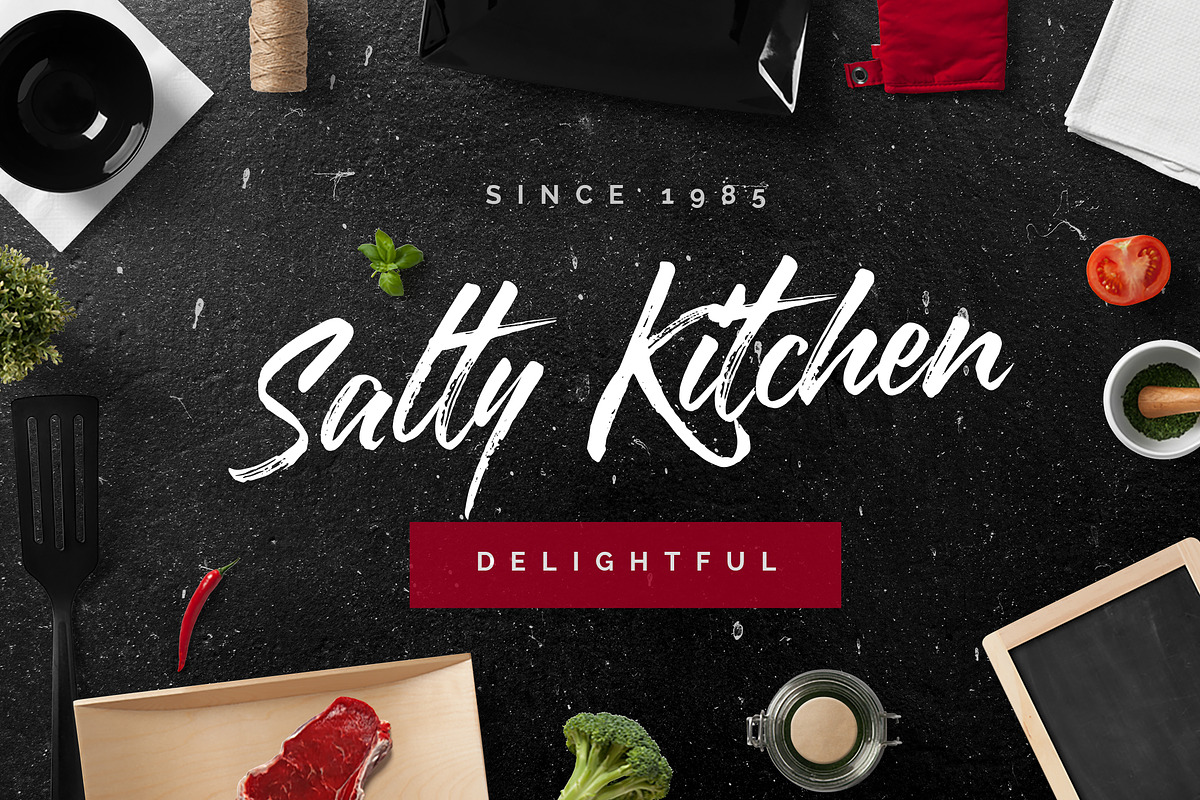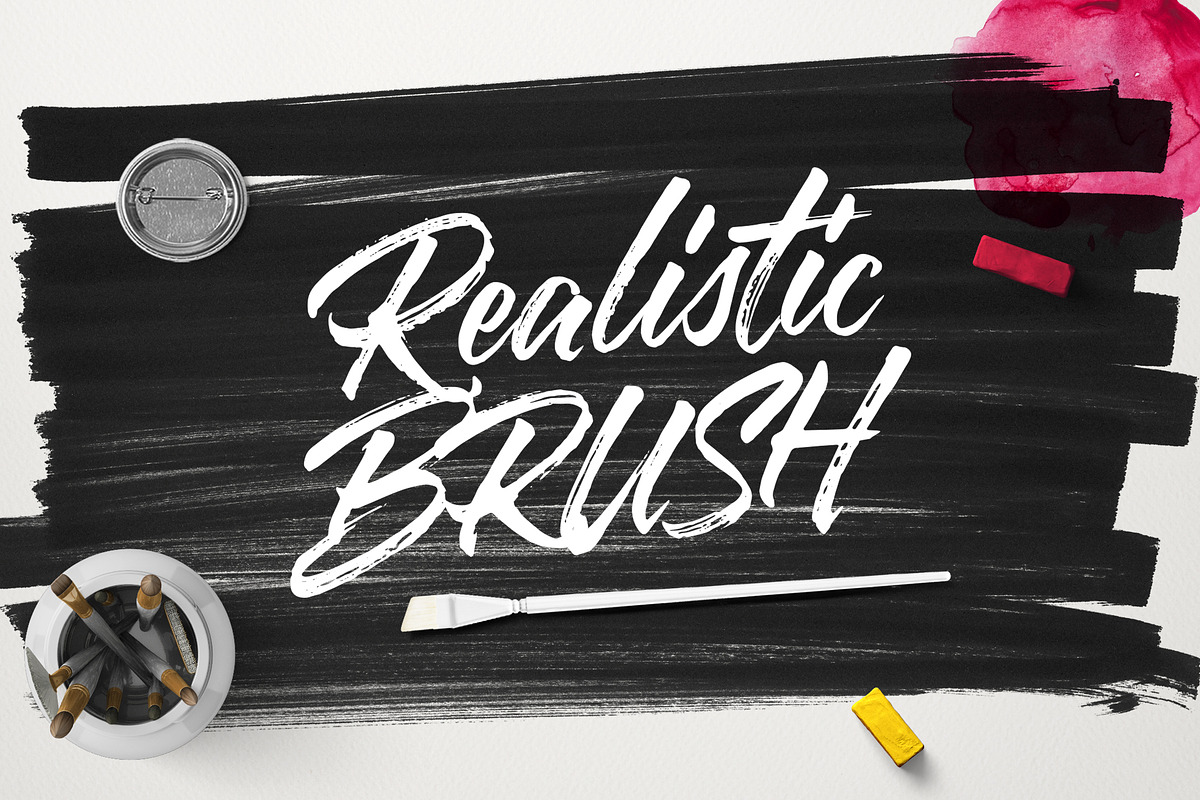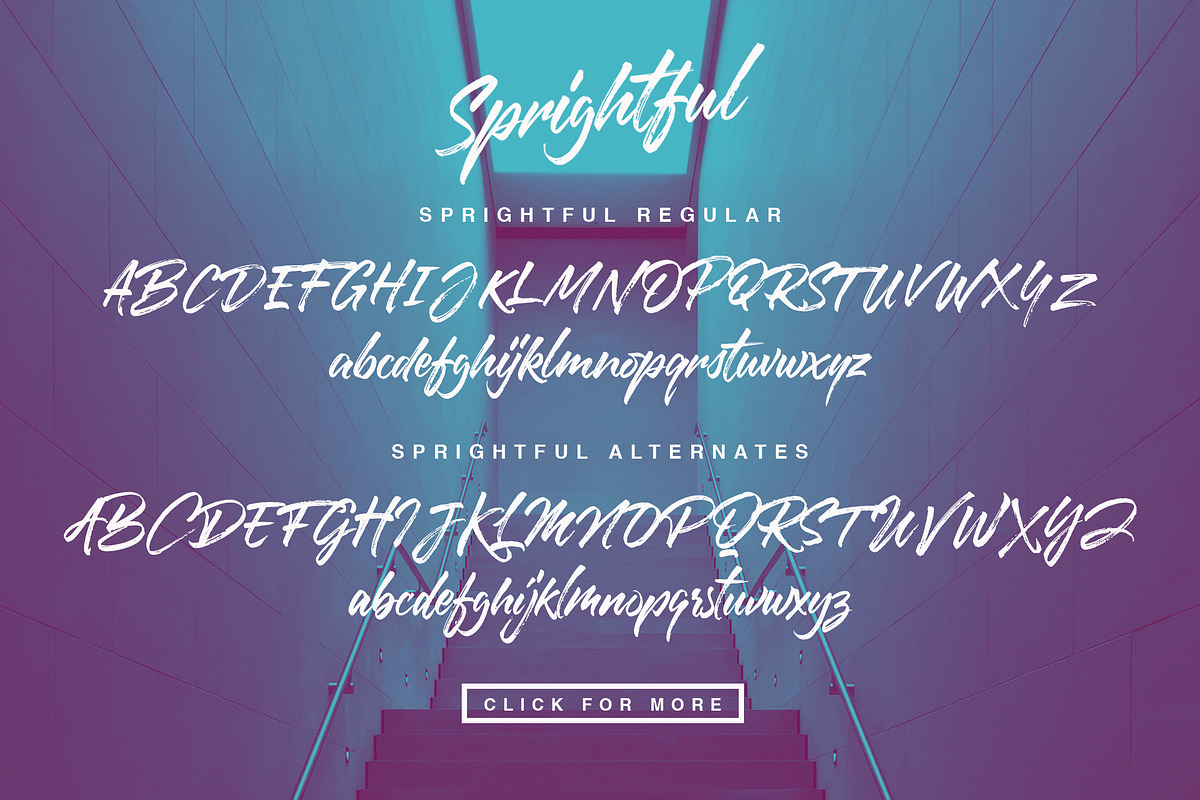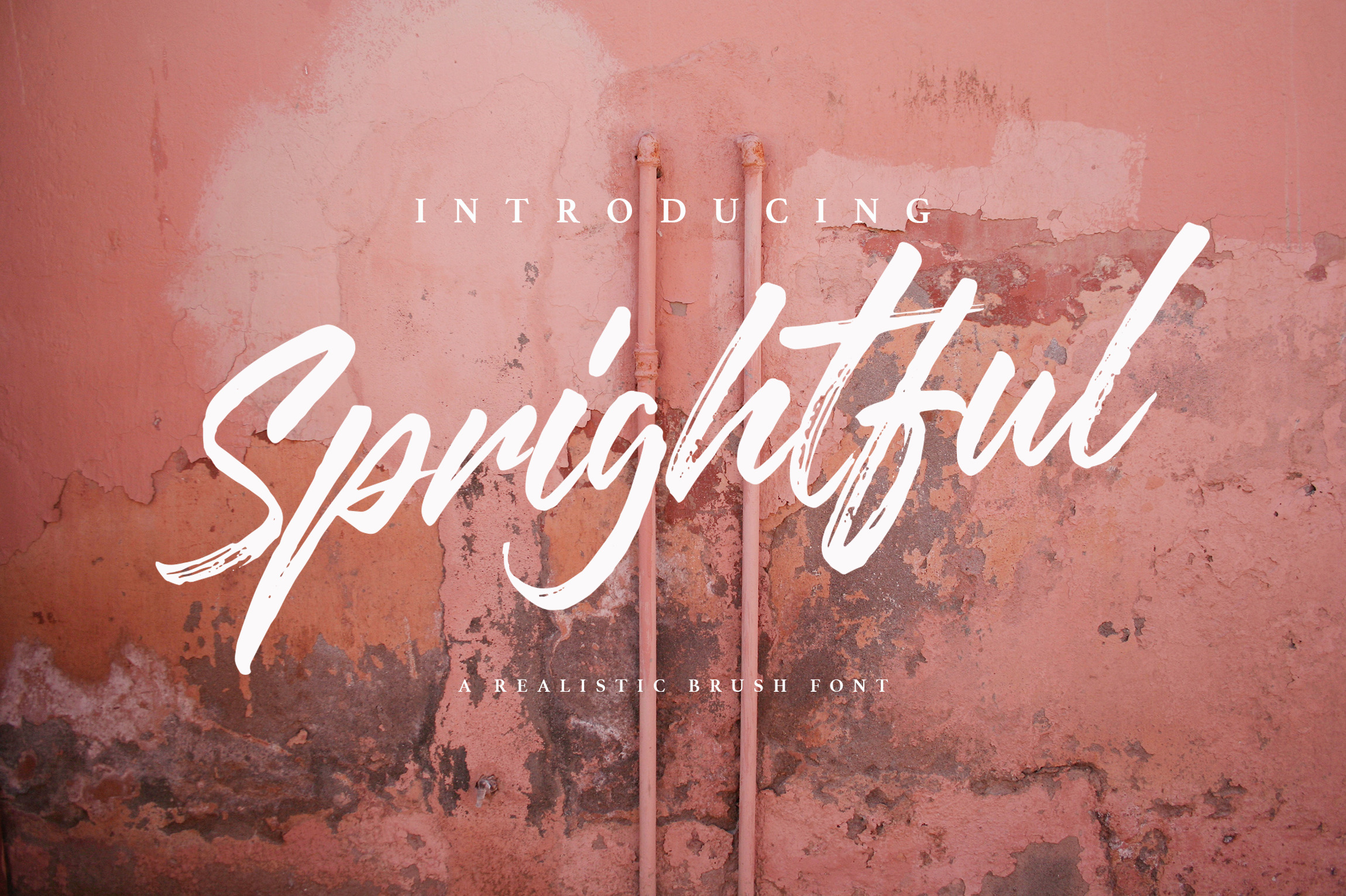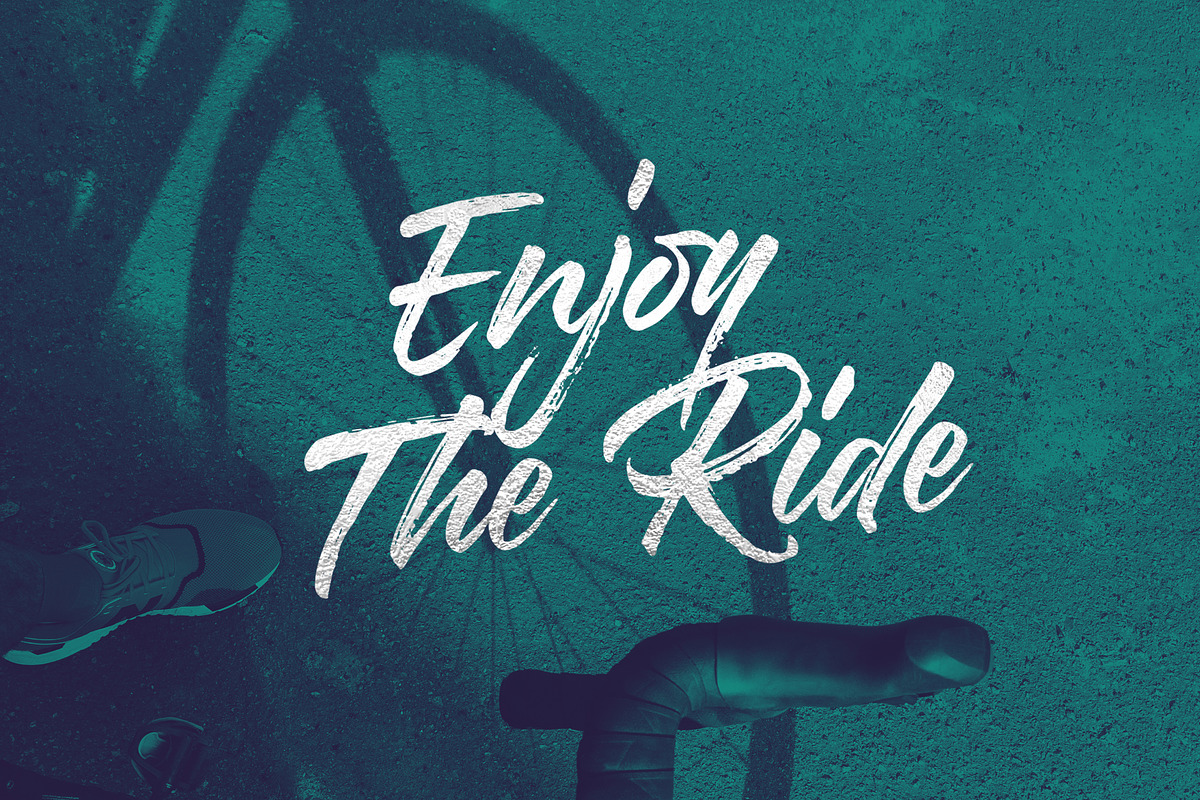
Sprightful Font
Introducing...
Sprightful Font is a casual dry brush font with a bunch of letter variations to make that perfect and unique design. Ideal for the header, logos, handwritten quotes, product packaging, poster, merchandise, social media & greeting cards.
Sprightful Font comes with upper and lowercase characters, a large set of punctuation glyphs, numerals, and a second version of Sprightful, with a completely new set of both lower and uppercase characters. If you wanted to avoid letters looking the same each time to recreate a custom-made style, or try a different word shape, simply switch to this font for an additional layout option.